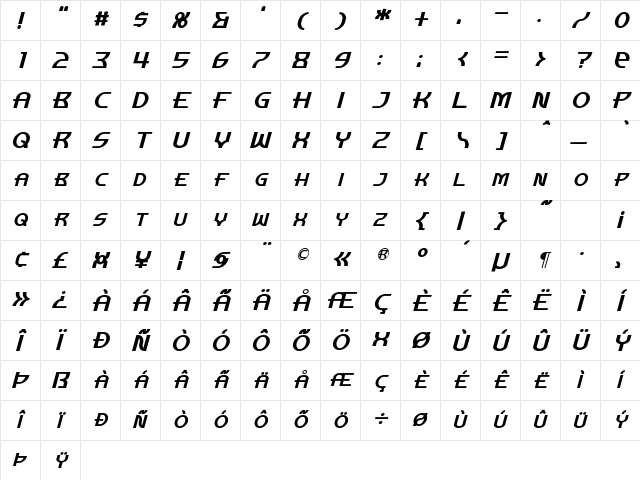
Manhattan Tower Italic Free Font
Manhattan Tower Italic
Foundry: Pixel Sagas
Designer: Neale Davidson
Design Context for Manhattan Tower
Manhattan Tower is a composed and adaptable typeface that performs quietly and consistently across a wide range of design contexts. The slanted form adds forward momentum and visual energy.